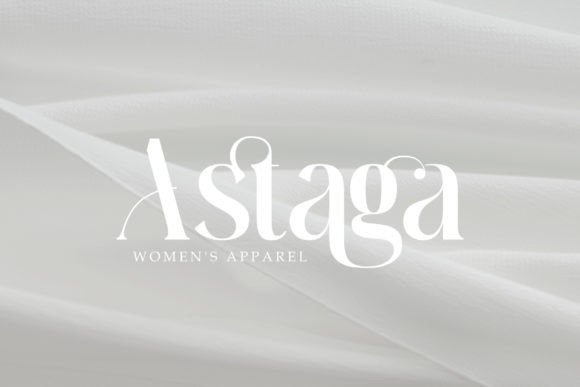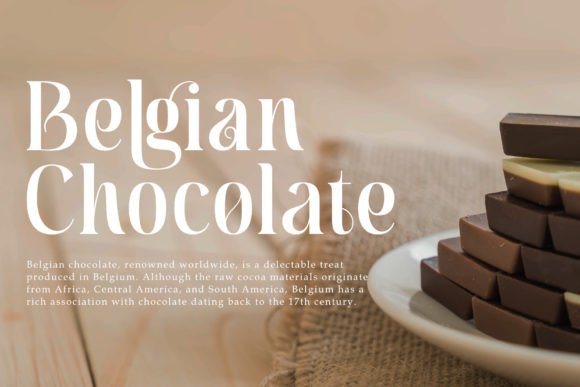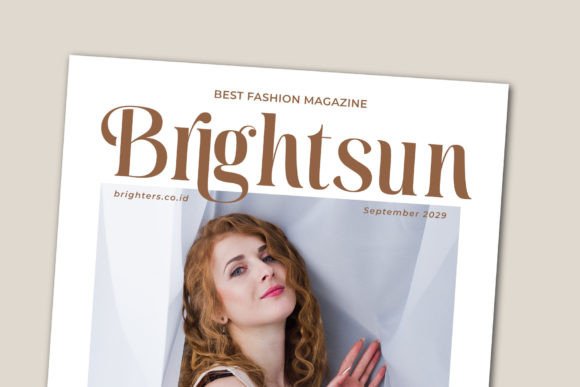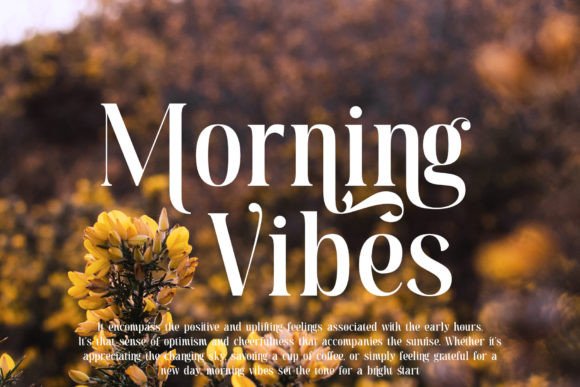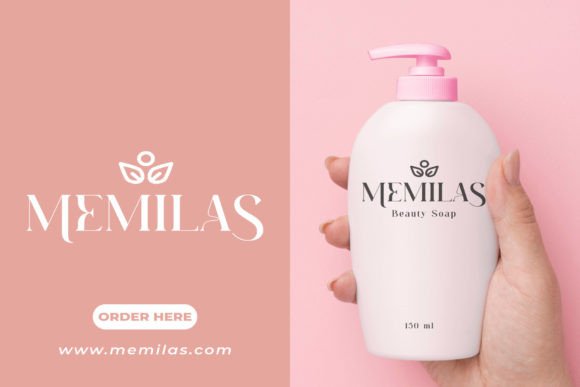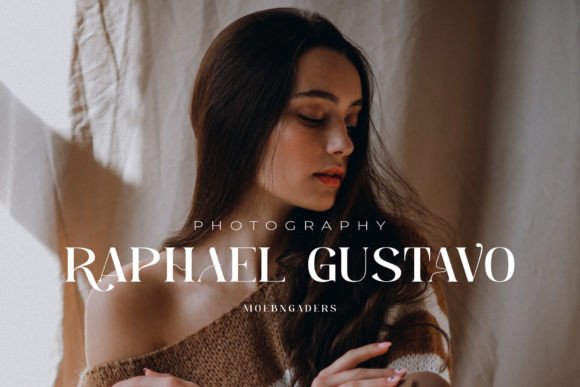
Introduction to Moebngaders Font
As a designer, there’s nothing quite like the thrill of bringing a project to life. The moment when all the elements come together, and your vision takes shape, is pure magic. But have you ever felt like you’re missing that special something to elevate your design? Enter Moebngaders Font – a game-changing serif font that’s about to become your new best friend.
With its unique blend of elegance and strength, Moebngaders Font is the perfect design resource for any creative project. Whether you’re crafting a brand identity, designing a logotype, or working on a high-quality publication, this font is sure to impress. And the best part? It’s free to download, so you can get started right away without breaking the bank.
From its transparent background to its rich palette of alternates and ligatures, Moebngaders Font is a versatile design tool that’s waiting to be explored. So why settle for ordinary when you can have a font that truly stands out? Discover the power of Moebngaders Font and take your designs to the next level.
Key Features of Moebngaders Font
- High-quality design resource ideal for creative projects requiring unique typography.
- Transparent background, making it suitable for use with images and other design elements.
- Supports a wide range of languages, making it a versatile design resource.
- Includes a comprehensive character set with a range of special characters and symbols.
- Available in a single font size, with a resolution of 300 DPI for high-quality printing.
- Designed to be highly customizable, allowing users to adjust the font’s appearance to suit their needs.
Honest Review: Moebngaders Font
As a designer, I’m always on the lookout for high-quality design resources to enhance my creative projects. Recently, I stumbled upon the Moebngaders Font, and I’m excited to share my honest review with you.
- ✨ Unique and quirky design aesthetic that adds a touch of personality to any project
- ✨ Highly legible and clear, making it perfect for body text or headings
- ✨ Transparent background, allowing for seamless integration with any design element
- ⚠️ Limited font sizes and styles available, which may not be ideal for complex design projects
- ⚠️ Not ideal for large-scale printing or high-resolution designs, as it may not hold up well
Overall, I’m impressed with the Moebngaders Font. Its unique design and high-quality feel make it a great addition to any design project. While it may have some limitations, it’s a great free resource for designers looking to add some personality to their work.
To get the most out of Moebngaders Font, experiment with different font sizes, colors, and combinations. You can also use it in conjunction with other design elements to create a unique and eye-catching design.